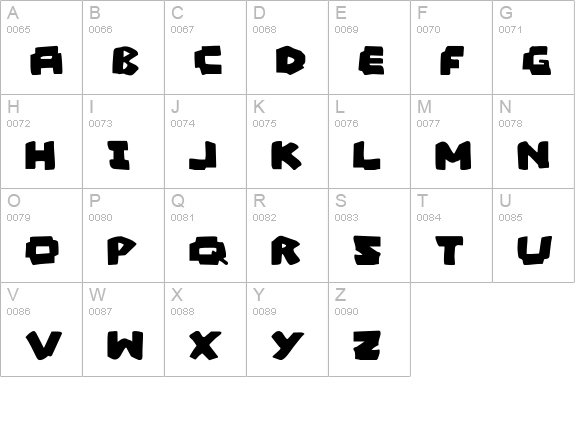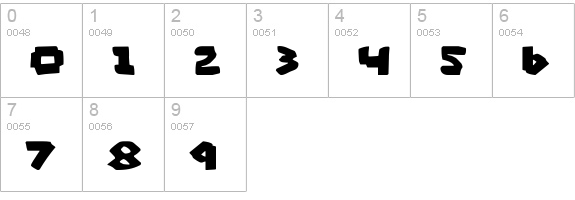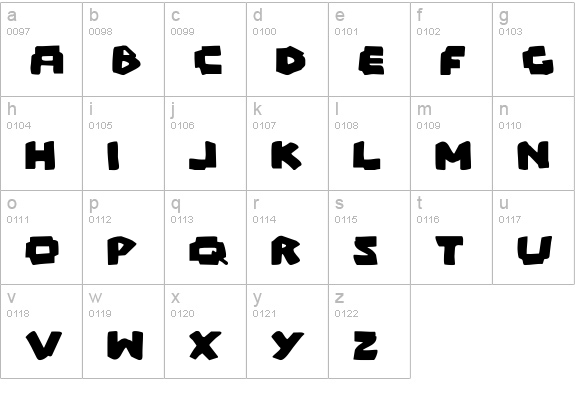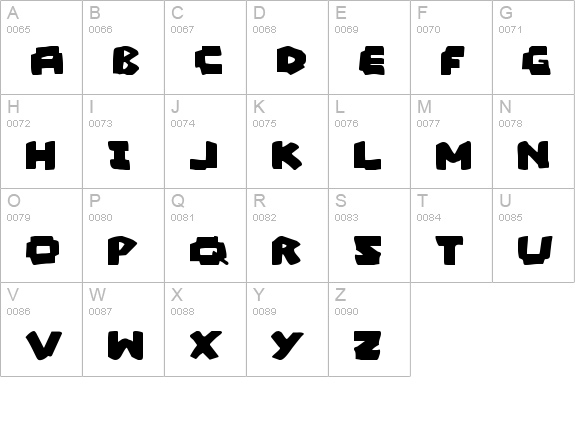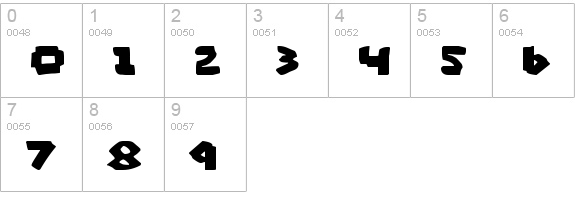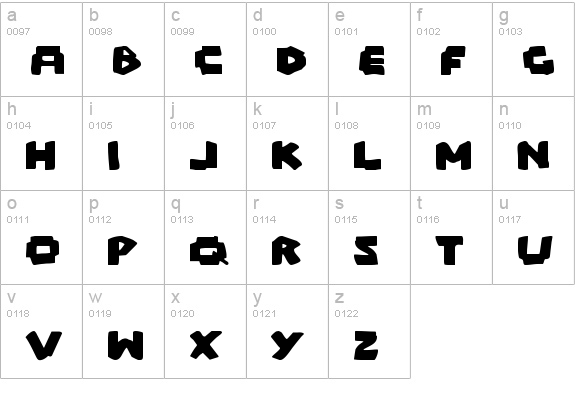
Mad Marker Font Details
Introducing Mad Marker, a free-spirited and expressive font that adds a touch of whimsy to your designs. With its hand-drawn style and playful strokes, Mad Marker captures the essence of creativity and spontaneity. This font is perfect for a wide range of design projects, from eye-catching logos and witty headlines to charming invitations and unique social media posts. Its uneven lines and quirky imperfections give your text a distinct character, making it stand out from the crowd. But what makes Mad Marker truly special is that it is freely available to download at FontsMarket.com. Yes, you heard it right - this amazing font can be yours without spending a dime. FontsMarket.com is a trusted source for high-quality fonts, and they offer Mad Marker as a gift to designers, artists, and anyone looking to add some artistic flair to their work. So go ahead, unleash your creativity with Mad Marker. Whether you're a professional designer or an amateur enthusiast, this font will elevate your designs and bring them to life. Download Mad Marker today from FontsMarket.com and let your imagination run wild.